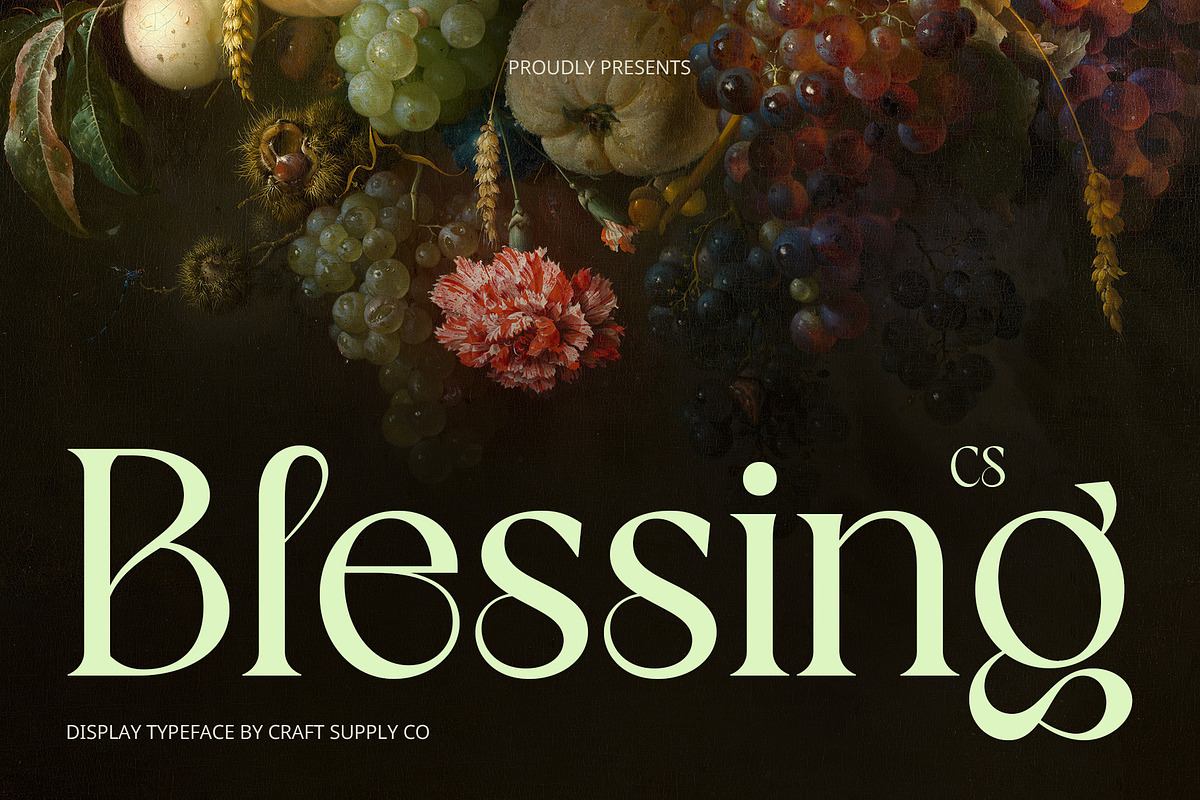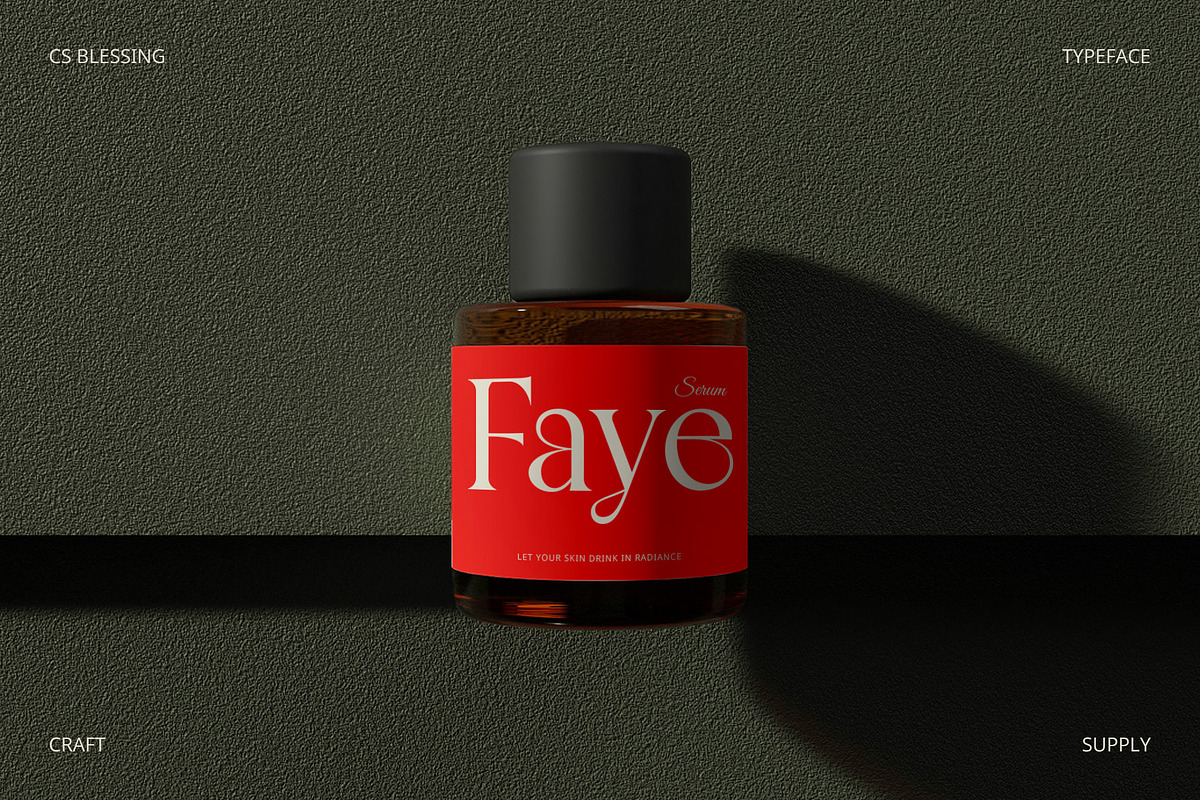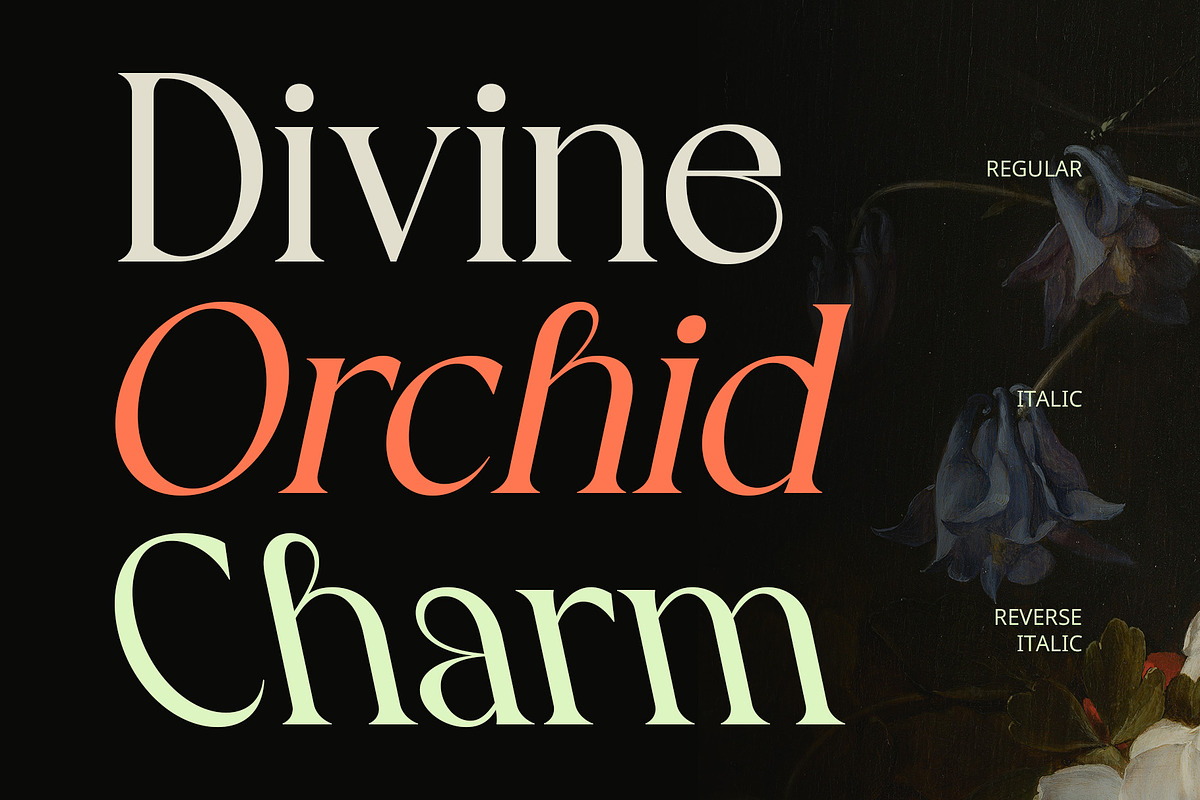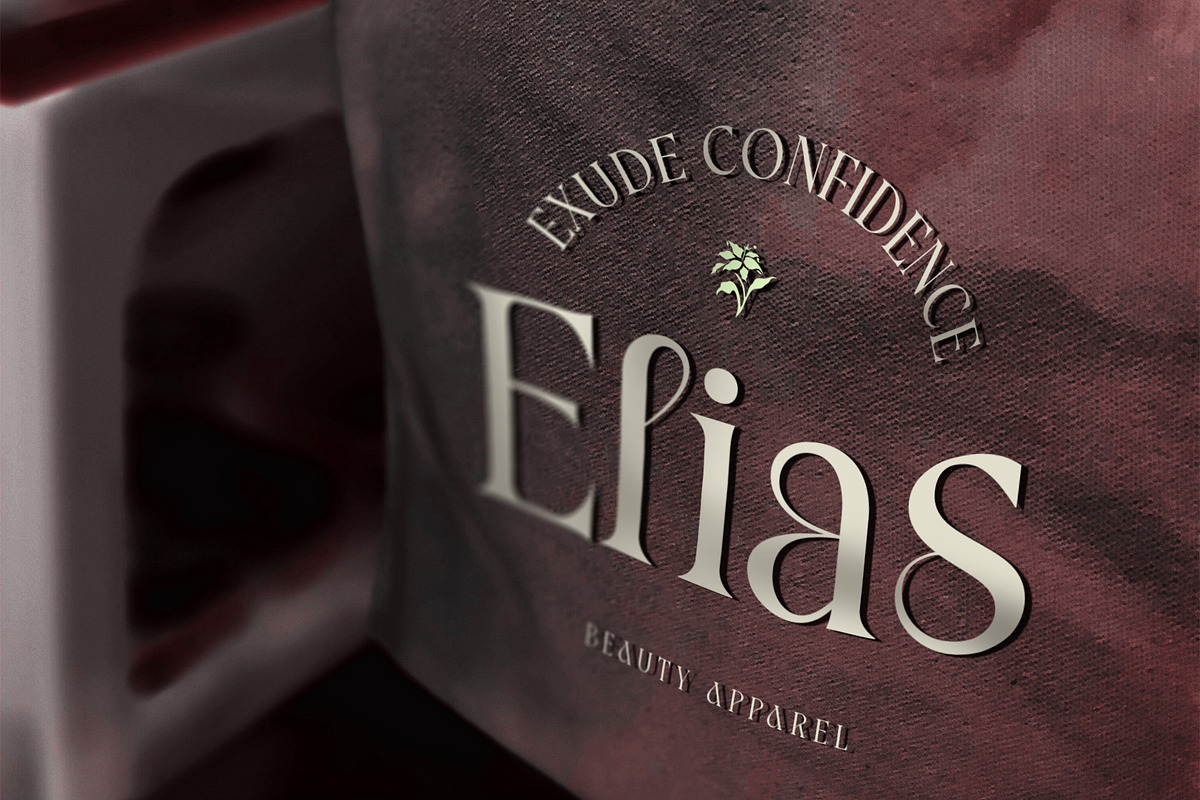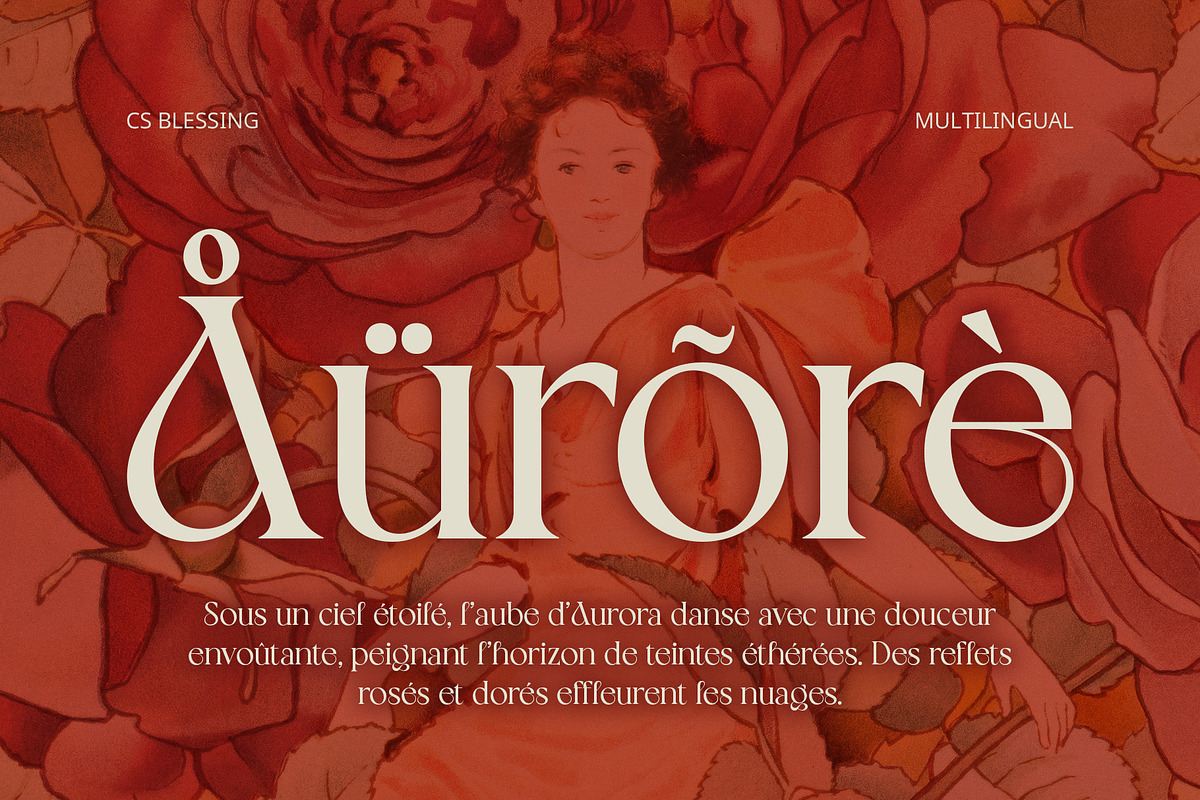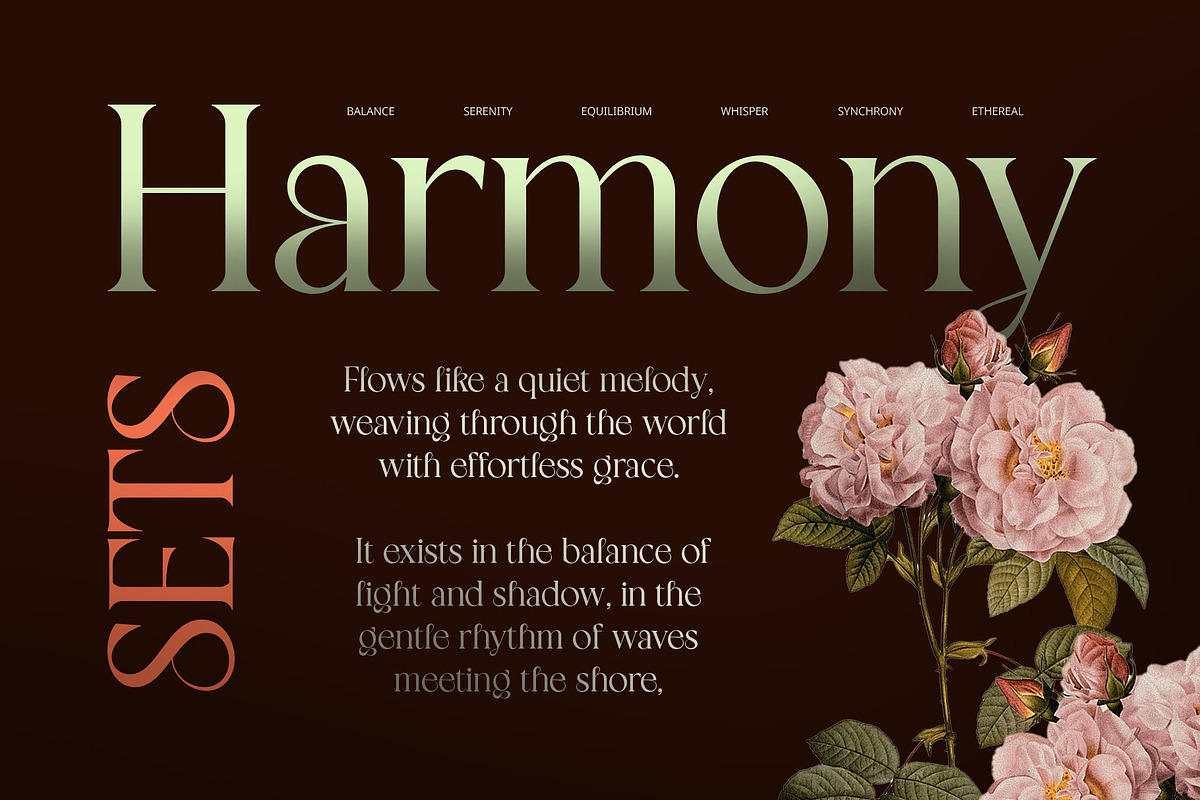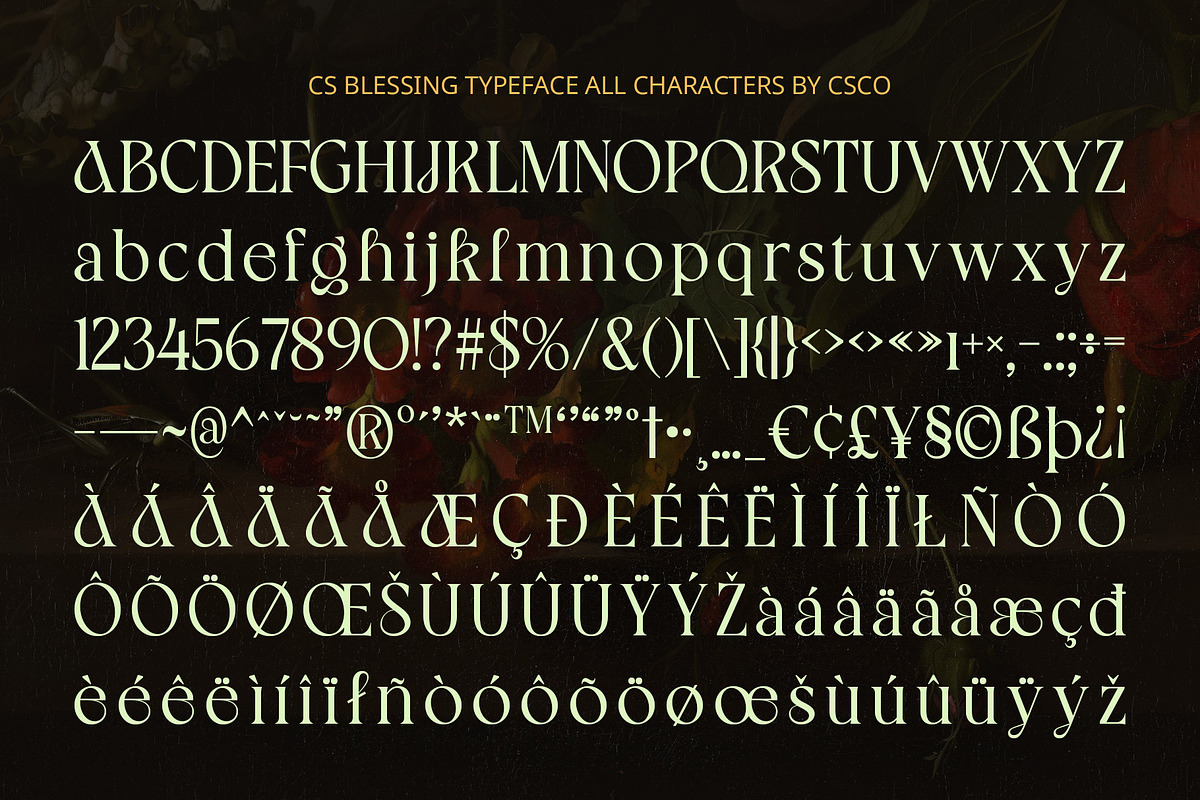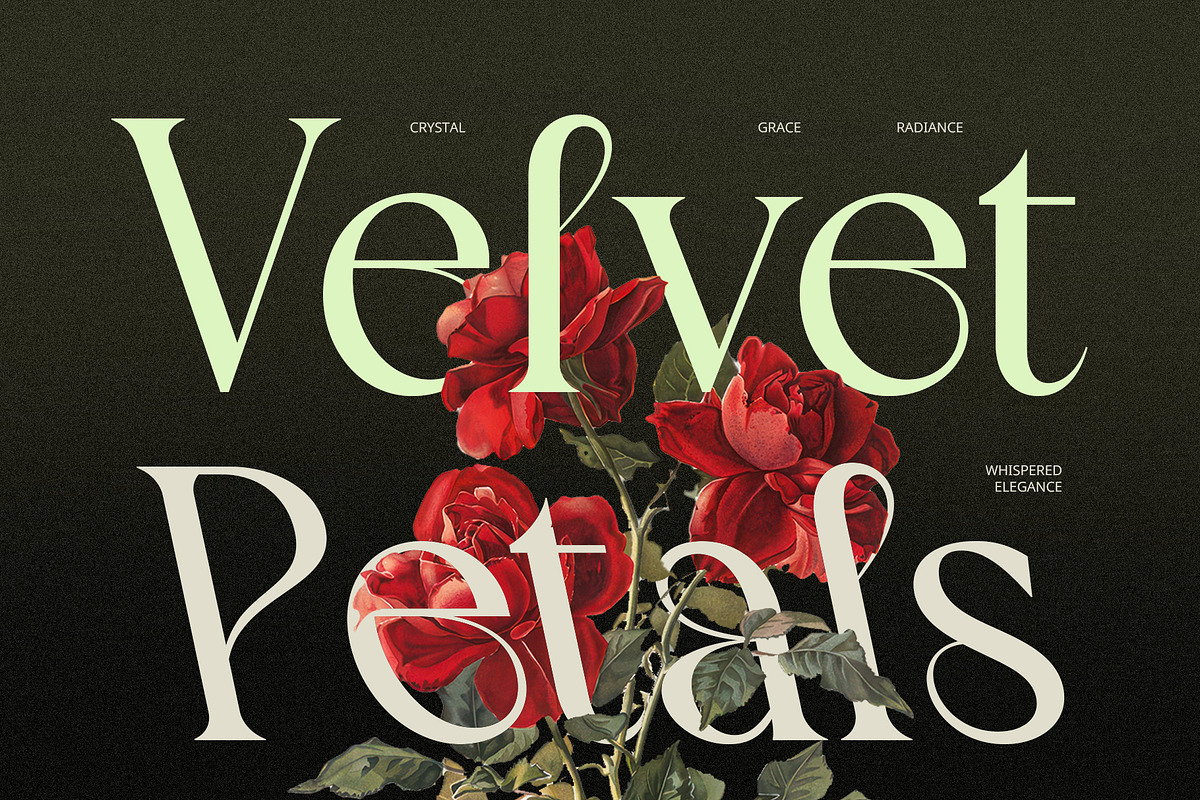
CS Blessing – Art Nouveau Font
CS Blessing Font – Art Nouveau Elegance Redefined
A Modern Display Serif with Art Nouveau Charm CS Blessing is a sophisticated display serif font inspired by the grace and fluidity of Art Nouveau design. Its ornate curves, flowing lines, and decorative serifs reflect the organic beauty of nature and artistic craftsmanship. With delicate yet bold strokes, it offers a refined aesthetic that feels both classic and contemporary, making it a perfect choice for elevated design projects.
Ornate Yet Contemporary Letterforms The font’s tall and slender proportions, paired with subtle asymmetrical flourishes, create a unique balance between vintage charm and modern sophistication. Each letterform is designed with graceful curves and intricate detailing, evoking a sense of luxury and artistic depth. Its structured yet fluid composition ensures it remains eye-catching and versatile across various design applications.
Perfect for Luxury and Editorial Design CS Blessing is ideal for luxury branding, high-end packaging, editorial layouts, and sophisticated posters. Whether used for cosmetic labels, fashion campaigns, or artistic publications, its ornamental yet refined style ensures a distinctive and premium visual appeal.
Timeless Elegance for Creative Expression Designed for projects that demand grace and exclusivity, CS Blessing captures the essence of Art Nouveau with a contemporary twist. Its fluid, expressive details add a sense of movement and artistic depth, making it perfect for designers seeking a harmonious blend of vintage inspiration and modern versatility.
- CS Blessing Regular
- CS Blessing Italic
- CS Blessing Reverse Italic